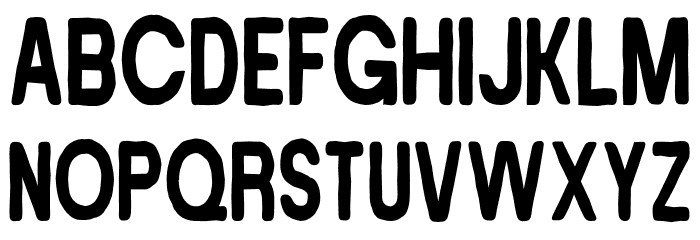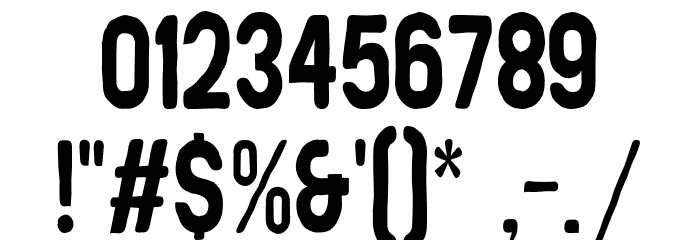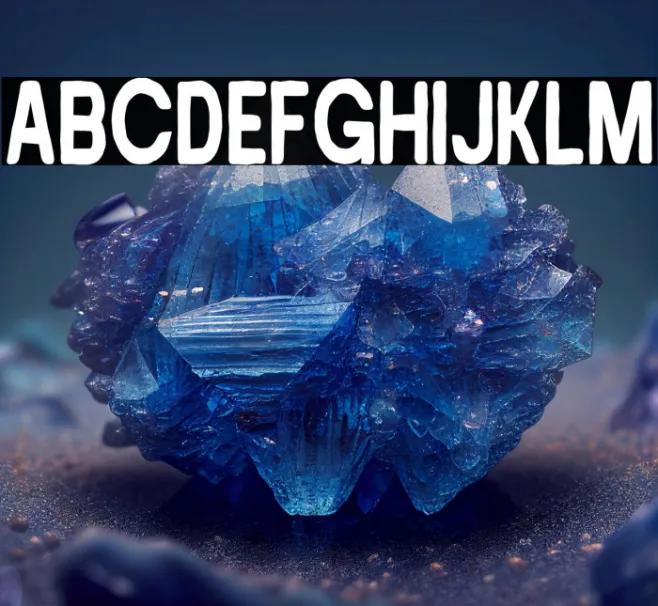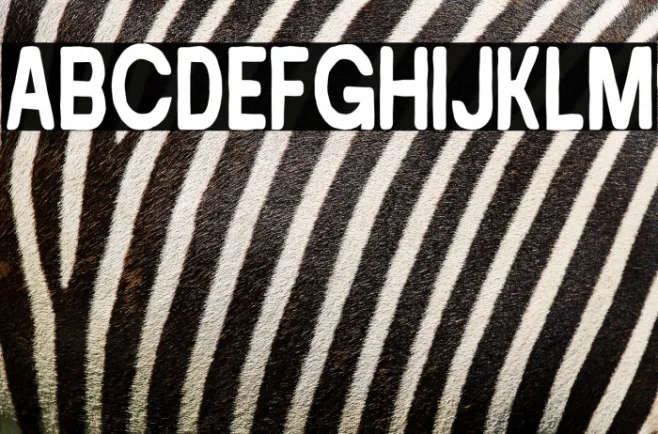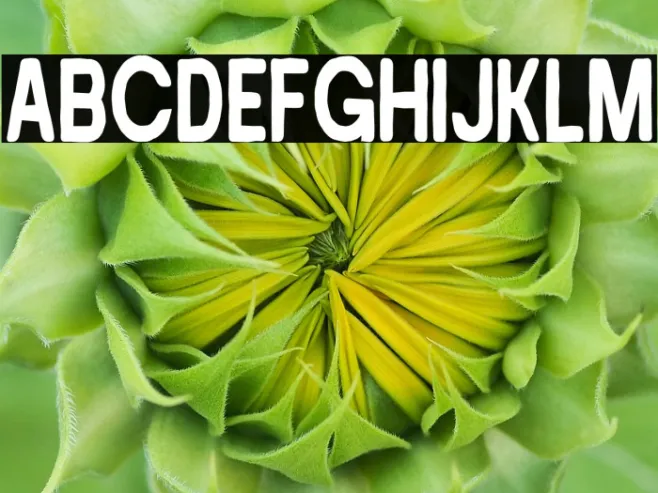
Power Slime Font
This font features a bold and playful design with rounded edges and a slightly irregular form, giving it a hand-drawn appearance. The characters are thick and substantial, making them highly legible and impactful. The uppercase and lowercase letters maintain a consistent style, while the numbers and special characters complement the overall aesthetic. The font's unique style is reminiscent of vintage comic book lettering, adding a touch of nostalgia and fun. Its boldness ensures that it stands out in any design, making it suitable for attention-grabbing headlines and creative projects.
A bold, playful font with rounded, hand-drawn characters.
- Font: Power Slime
- Proposed Projects: Ideal for comic books, children's books, posters, and playful branding.
- Overall Style: Playful, Vintage